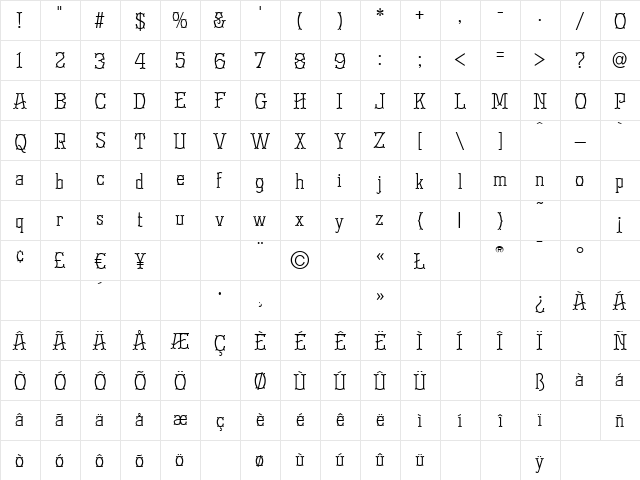
Trixie Normal
Design Context for Trixie Typeface
Trixie offers clean, dependable letterforms without strong stylistic allegiance, making it a practical choice for designers who need flexibility.